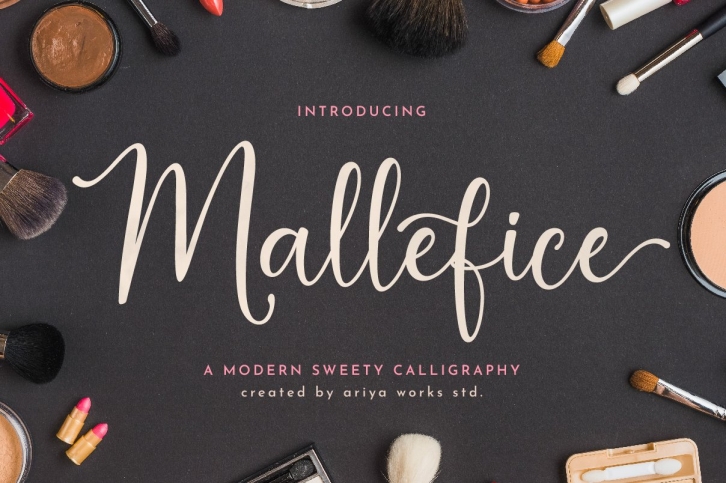
Mallefice | Modern Calligraphy Font Download
Mallefice is a trendy and unique font with an authentic style. It was designed by Ariya Works and it's a great choice for creative people who need such a font. It was released on October 1, 2020 and the file size is 3.29 MB. Mallefice will add an organic vibe to any design idea!